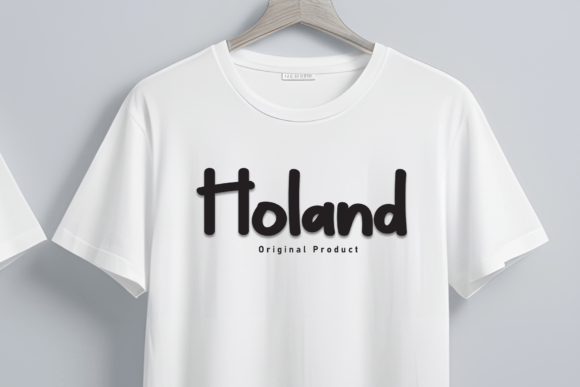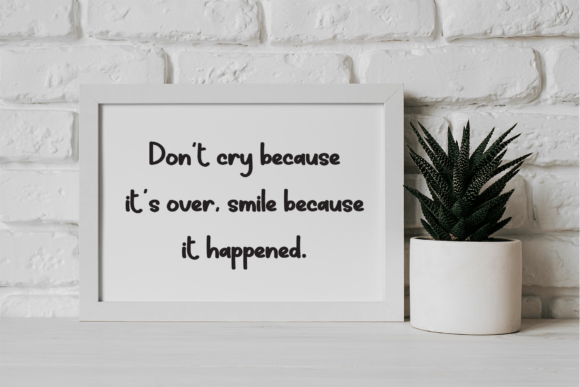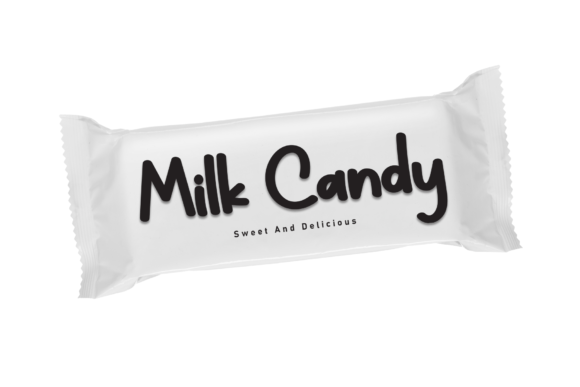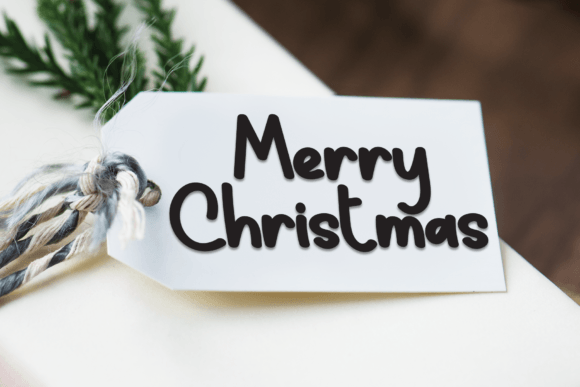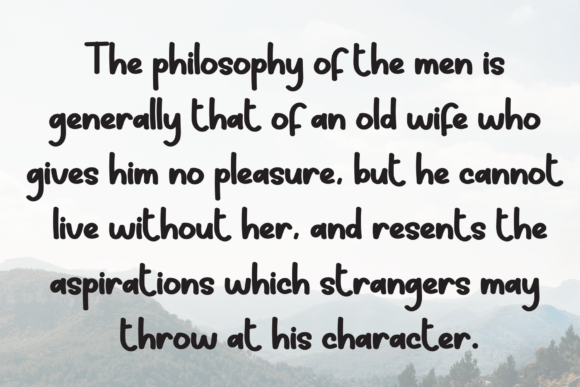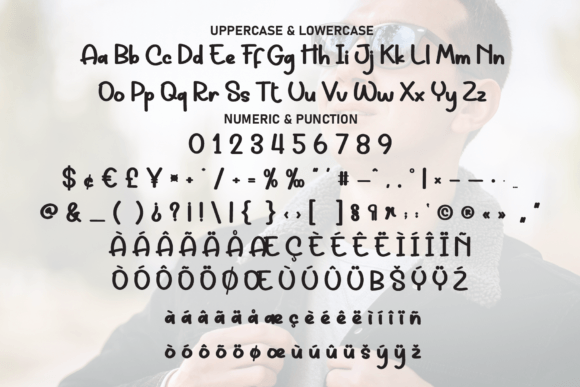
Introducing Handsome Font: A Charming Handwritten Display Font
Are you looking for a font that can add a touch of whimsy and friendliness to your designs? Look no further than Handsome Font, a delightful handwritten display font that’s perfect for crafting heartwarming wedding invitations, personalized cards, and more. With its unique blend of sweetness and familiarity, this font is sure to enchant your audience and leave a lasting impression.
The Characteristics of Handsome Font
Handsome Font is a carefully crafted handwritten display font that exudes a sense of charm and congeniality. Its whimsical design makes it perfect for designs that require a touch of fun and playfulness, while its friendly familiarity ensures that it remains approachable and relatable. Whether you’re designing wedding invitations, birthday cards, or social media graphics, Handsome Font is the perfect choice.
Perfect for Wedding Invitations and Personalized Cards
Wedding invitations and personalized cards are special occasions that require a font that’s both elegant and playful. Handsome Font fits the bill perfectly, adding a touch of whimsy and romance to any design. Its delicate lines and curves make it perfect for printing on high-quality paper or cardstock, while its digital versatility ensures that it looks great on screens too.
Why Choose Handsome Font?
So why choose Handsome Font over other fonts? Here are just a few reasons why designers and crafters love this charming font:
- Unique and eye-catching design: Handsome Font’s whimsical design makes it stand out from more traditional fonts, adding a touch of personality to any design.
- Versatile and adaptable: Whether you’re designing print materials or digital graphics, Handsome Font is the perfect choice.
- Easy to read and understand: Despite its playful design, Handsome Font is easy to read and understand, making it perfect for body text and headings.
- Perfect for a variety of design projects: From wedding invitations to social media graphics, Handsome Font is the perfect choice for any design project that requires a touch of whimsy and friendliness.
Tips for Using Handsome Font
Here are a few tips for getting the most out of Handsome Font:
- Use it for headings and titles: Handsome Font is perfect for headings and titles, adding a touch of whimsy and personality to any design.
- Pair it with complementary fonts: For body text and other design elements, pair Handsome Font with complementary fonts that share a similar feel and aesthetic.
- Experiment with colors and textures: Handsome Font looks great in a variety of colors and textures, so don’t be afraid to experiment and find the perfect combination for your design.
Key Features of Handsome Font
| Font Style | Handwritten display font |
| Design Characteristics | Whimsical, sweet, friendly, and familiar |
| Best Uses | Wedding invitations, personalized cards, social media graphics, and more |